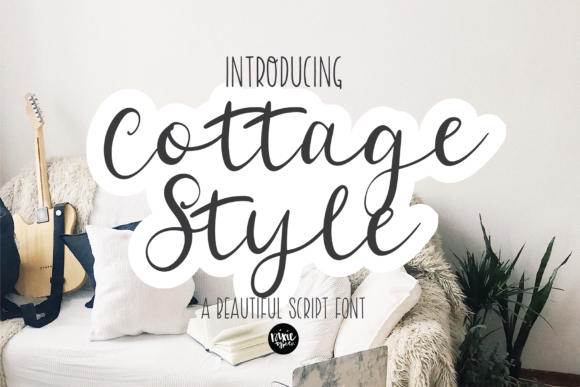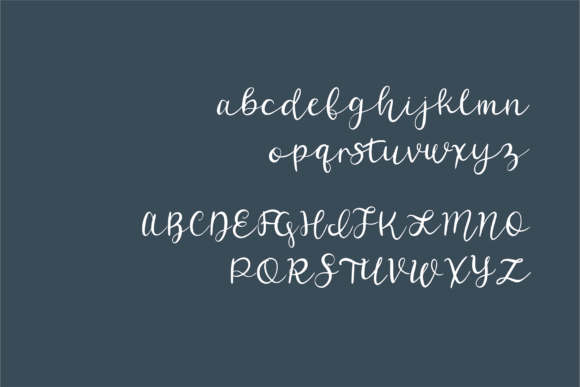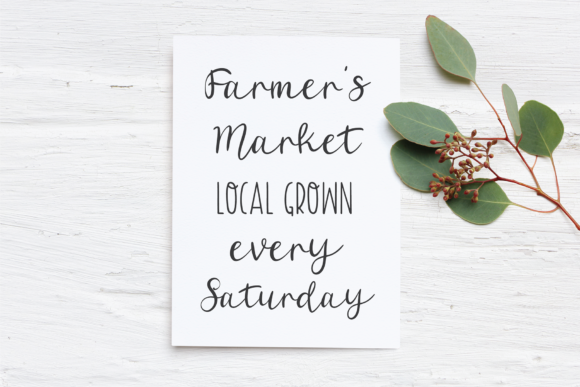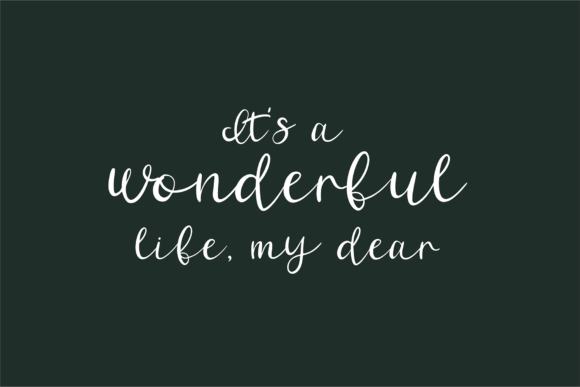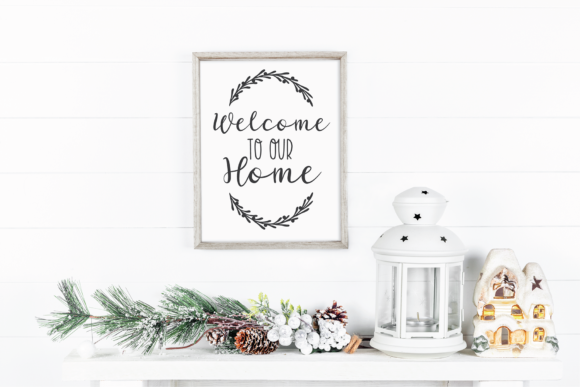
Cottage Style Font
Cottage Style is a beautiful script hand lettered font. It will elevate a wide range of design projects to the highest level, be it branding, headings, wedding designs, invitations, signatures, logos, labels, and much more!